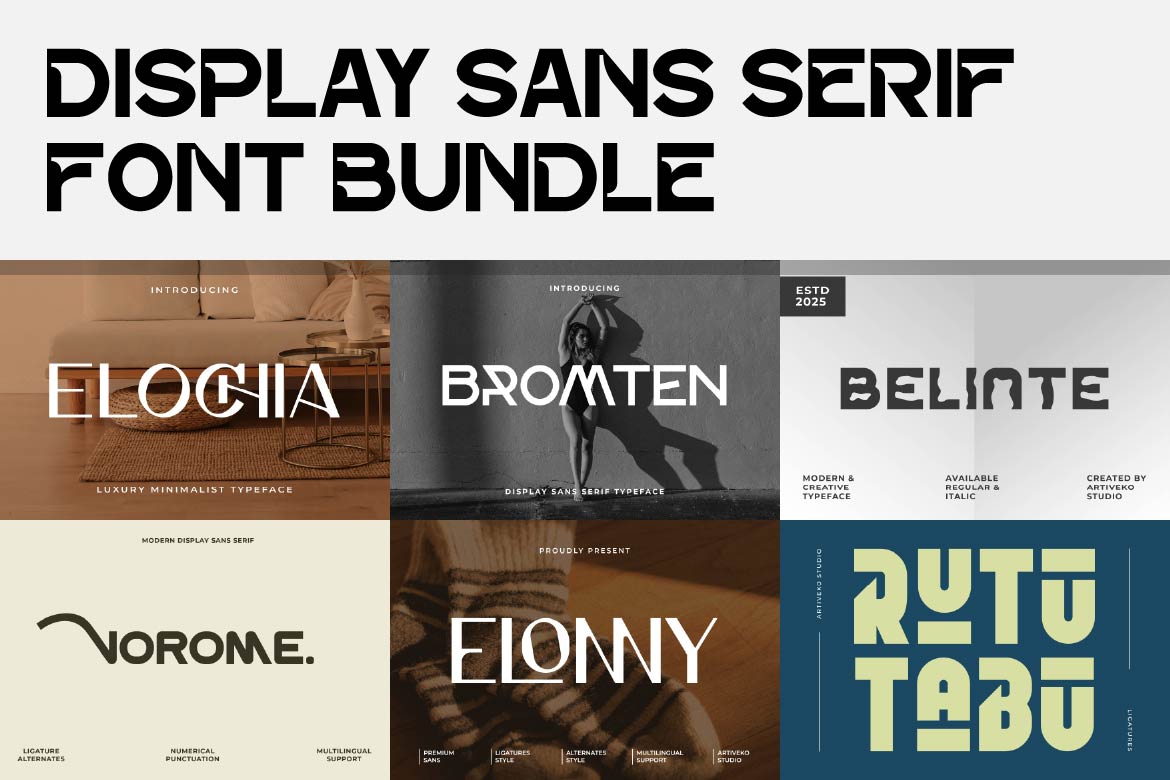
- Display Sans Serif Font Bundle
The Display Sans Serif Font Bundle is a premium collection of modern typefaces designed for impactful headlines, standout logos, and eye-catching creative projects. With strong letterforms, clean lines, and distinctive proportions, this bundle provides a wide range of sans serif fonts that ensure your typography is bold, stylish, and professional.
Perfect for branding, posters, packaging, apparel design, social media graphics, and digital campaigns, these fonts are tailored to make your text stand out. Each font is carefully crafted to balance readability with personality, giving you endless possibilities for both minimal layouts and expressive display designs.
Stylistic alternates and ligatures for creative freedom
With the Display Sans Serif Font Bundle, you can save time and effort while gaining access to a diverse toolkit of modern fonts — ideal for designers who want to create strong, consistent, and memorable visuals.
Make your work stand out with this essential font bundle, where bold creativity meets timeless design.